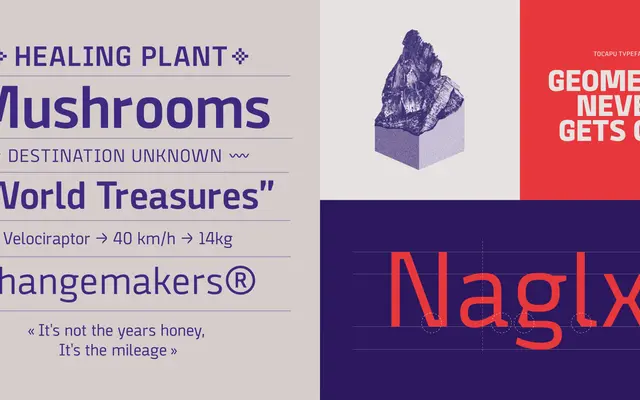
Tocapu specimen from The Designers Foundry
A geometric sans by Lima-based designer Paola Vecco, drawing on Andean geometric traditions to produce a clean face with truncated cuts and angular counters.
Built on an architectural logic, Tocapu uses faceted details, angular counters and a tall x-height to achieve stable typographic colour without sacrificing readability at text sizes. The family spans seven weights from ExtraLight to ExtraBold plus a variable font, and includes a stylistic ornaments set, alternates, oldstyle and tabular figures, ligatures and fractions. The cultural source material gives it a distinctive rhythm that separates it from generic geometric sans options in branding and editorial contexts.
A low-contrast geometric sans with angular counters, truncated cuts, and faceted details drawn from Andean geometric traditions. The tall x-height and architectural rhythm place it firmly in the geometric sans category.